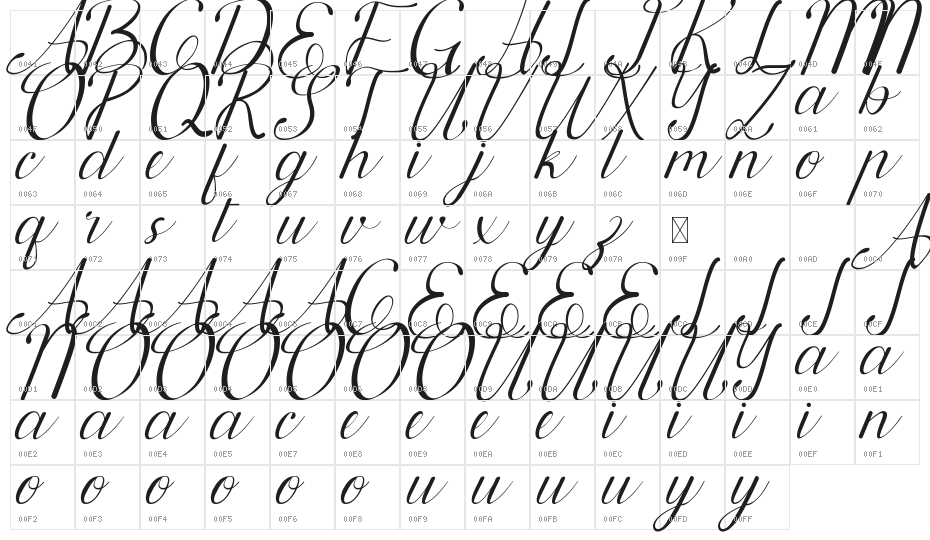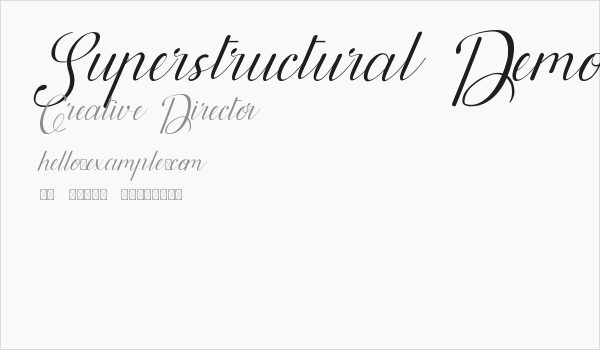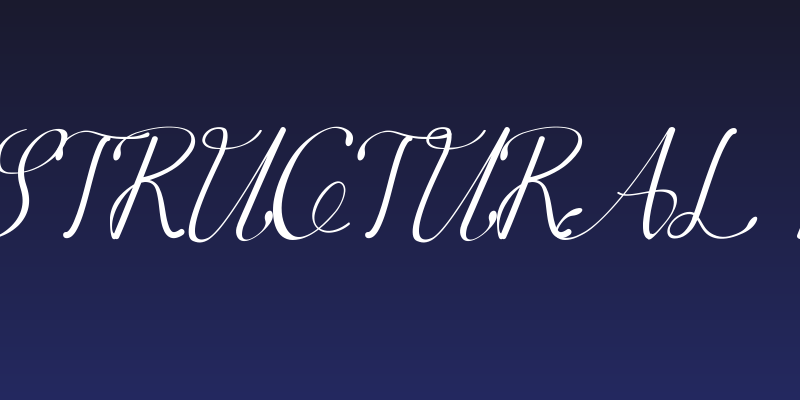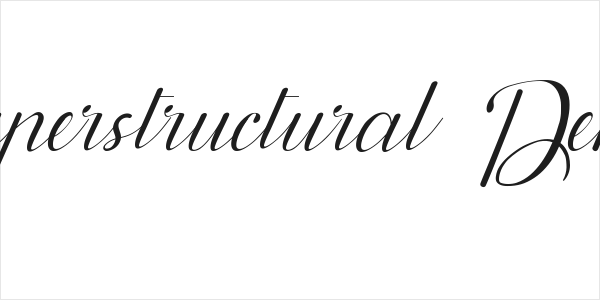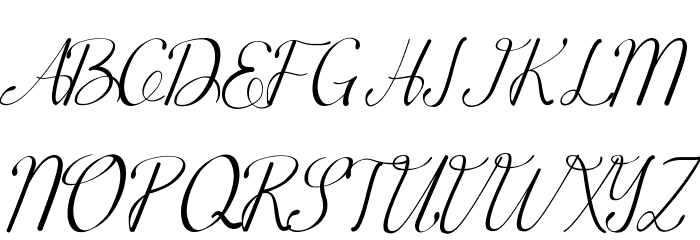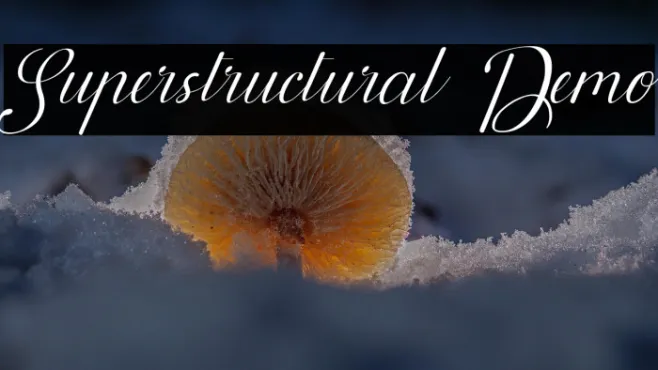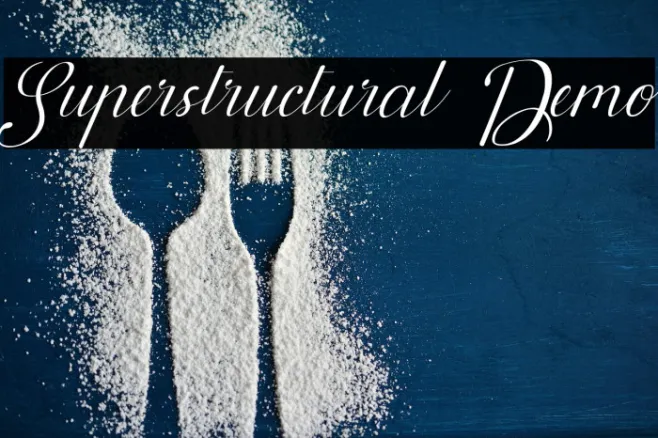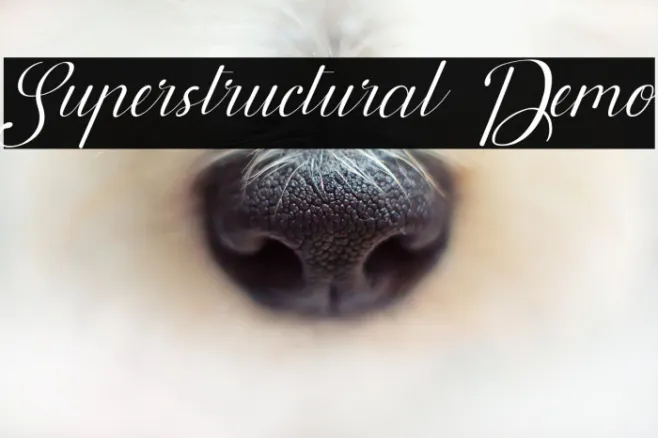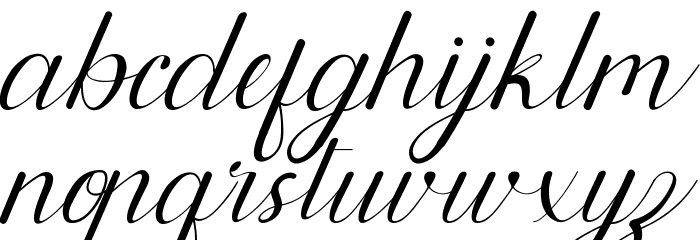
Superstructural Demo Font
✎ Calligraphic
Superstructural Demo Description
This font exhibits an elegant and sophisticated script style, characterized by its flowing, cursive letterforms. The uppercase letters are adorned with delicate swashes and loops, adding a touch of refinement and grace. The lowercase letters maintain a consistent fluidity, with smooth connections between characters, enhancing the overall readability. The font's design is reminiscent of traditional calligraphy, yet it maintains a modern appeal with its clean lines and balanced proportions. The characters are slightly elongated, giving a sense of height and elegance, while the moderate contrast in stroke thickness adds depth and visual interest.
| Categories | Calligraphic |
| Overall Style | Elegant, Modern |
| Use Case | Logos, Invitations, Decorative text |
| Proposed Projects | Ideal for wedding invitations, elegant branding, greeting cards, and upscale packaging. |